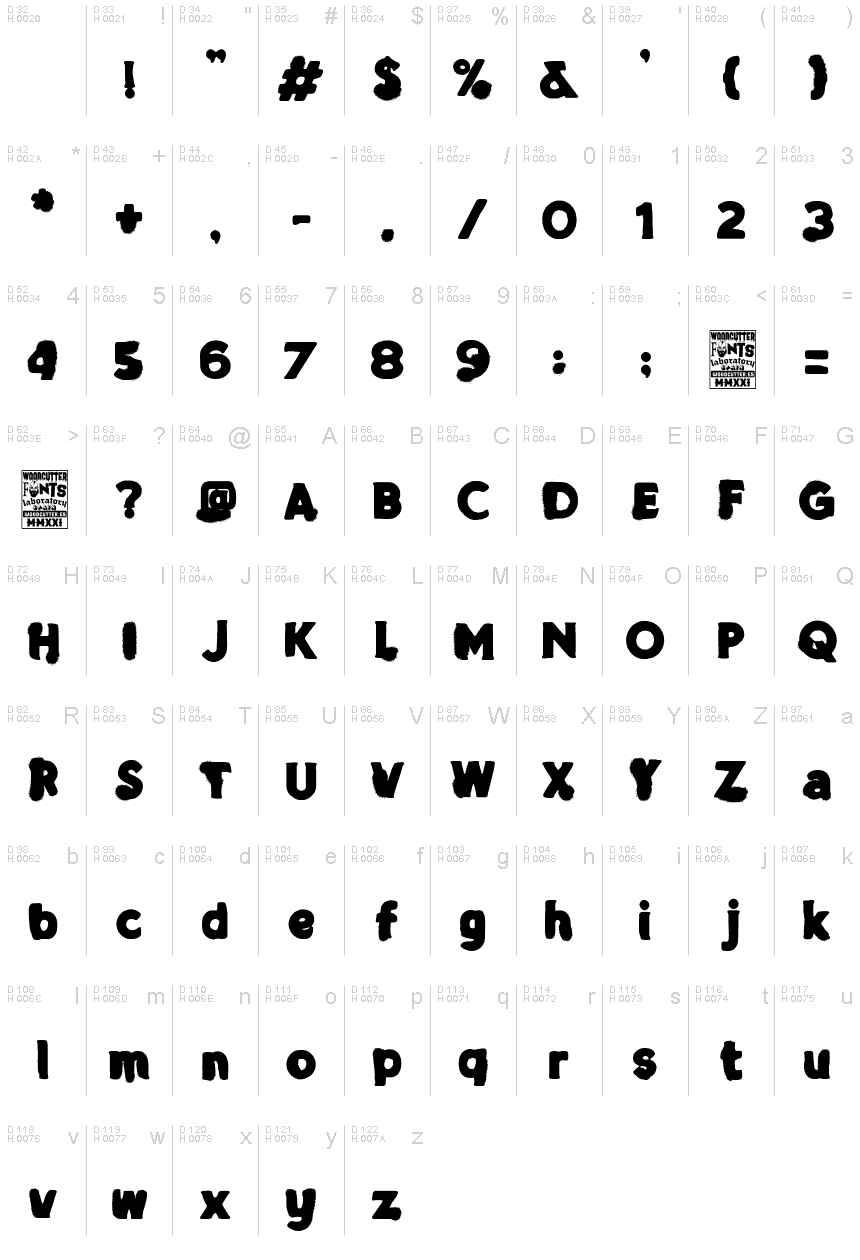
National Spain
National Spain, a bold and distorted display font designed by Woodcutter Manero, is perfect for projects that require a strong and edgy aesthetic. Its unique distortion adds an element of intrigue to any design, making it suitable for album covers, movie posters, and even edgy fashion brands. This semi-bold typeface is perfect for headlines and titles that need to capture attention. The width of the letters allows for easy legibility even at smaller sizes. National Spain's bold weight makes it perfect for designs that require a confident and commanding presence. Use this font to add an extra layer of personality to your designs!